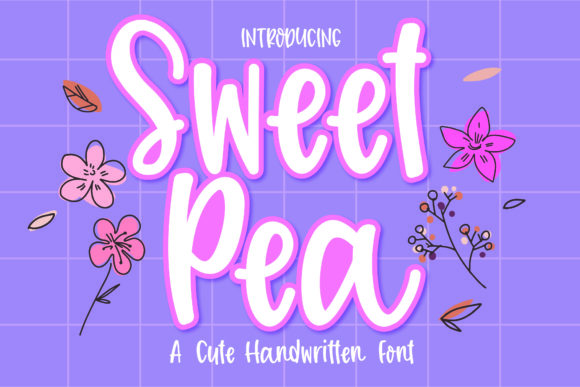
Introducing Sweet Pea Font: A Whimsical Handwritten Delight for Your Design Endeavors
In the realm of digital artistry, where creativity reigns supreme, the choice of font holds immense power in shaping the overall impact of your creations. Meet Sweet Pea Font, a captivating script font family that exudes playfulness and a refreshing charm, designed to elevate your designs to new heights. Crafted with meticulous care by the talented team at GoodMoodType, Sweet Pea is more than just a font; it's an artistic expression that breathes life into your digital masterpieces.
Step into a world where handwritten elegance meets digital brilliance. Sweet Pea Font is a symphony of meticulously crafted characters, each stroke infused with a delightful whimsy that captivates the senses. Its free-flowing lines dance across the screen, evoking a sense of spontaneity and carefree joy. Whether you're designing websites, social media graphics, invitations, or any other digital project, Sweet Pea Font adds an irresistible touch of personality that sets your creations apart.
Unleash your imagination and explore the endless possibilities that await with Sweet Pea Font. Its versatility knows no bounds, effortlessly adapting to a wide range of design aesthetics. From whimsical illustrations to elegant wedding invitations, from playful social media posts to sophisticated logos, Sweet Pea Font seamlessly blends into your vision, enhancing it with a touch of grace and charm.
But Sweet Pea Font is more than just aesthetically pleasing; it's a practical choice for designers seeking both beauty and functionality. Its crisp, clear lines ensure readability even at small sizes, making it ideal for both print and digital applications. Whether you're creating website text, product packaging, or eye-catching social media ads, Sweet Pea Font delivers a flawless performance, ensuring your message is conveyed with clarity and impact.
Join the creative revolution and embrace the magic of Sweet Pea Font. Let its playful spirit ignite your imagination and transform your designs into captivating works of art. Embrace the beauty of handwritten elegance and experience the joy of creating with a font that truly captures the essence of your artistic vision.